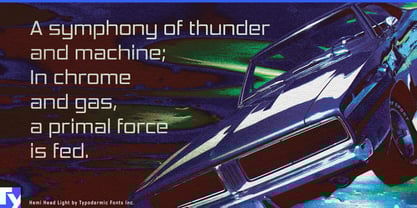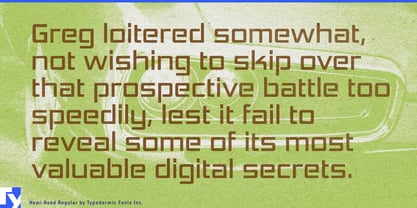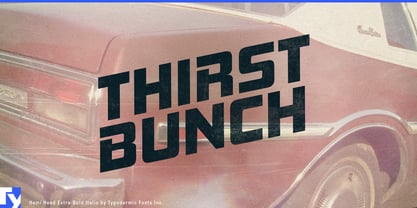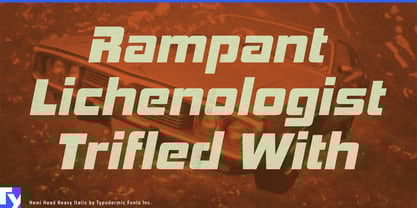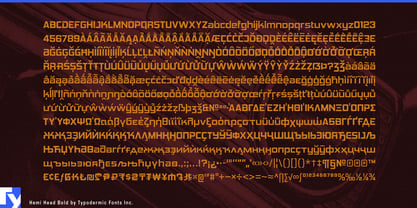
Hemi Head™
by Typodermic
The Hemi Head Font Family was designed by Ray Larabie and published by Typodermic. Hemi Head contains 18 styles and family package options.
Designers: Ray Larabie
Publisher: Typodermic
Foundry: Typodermic